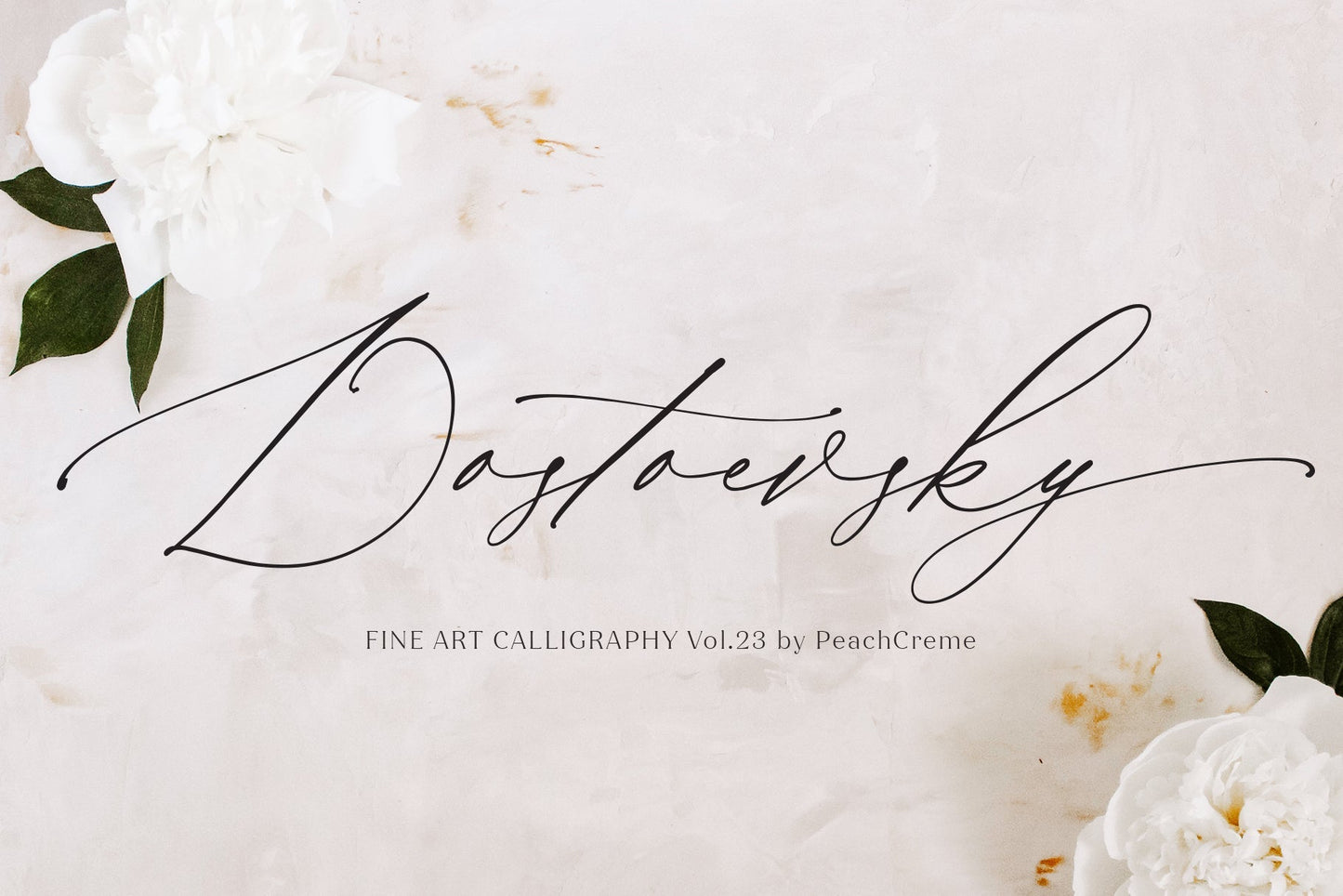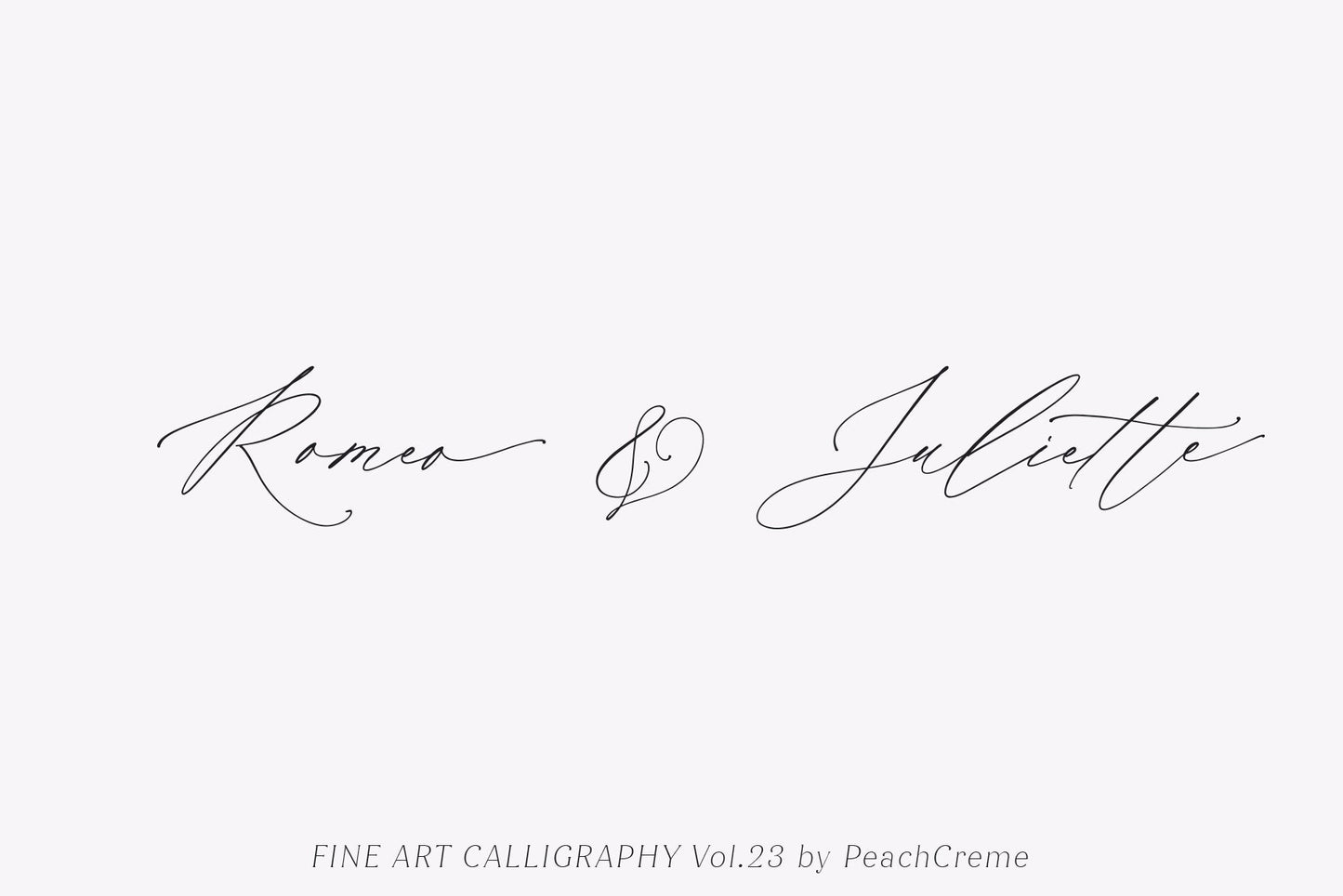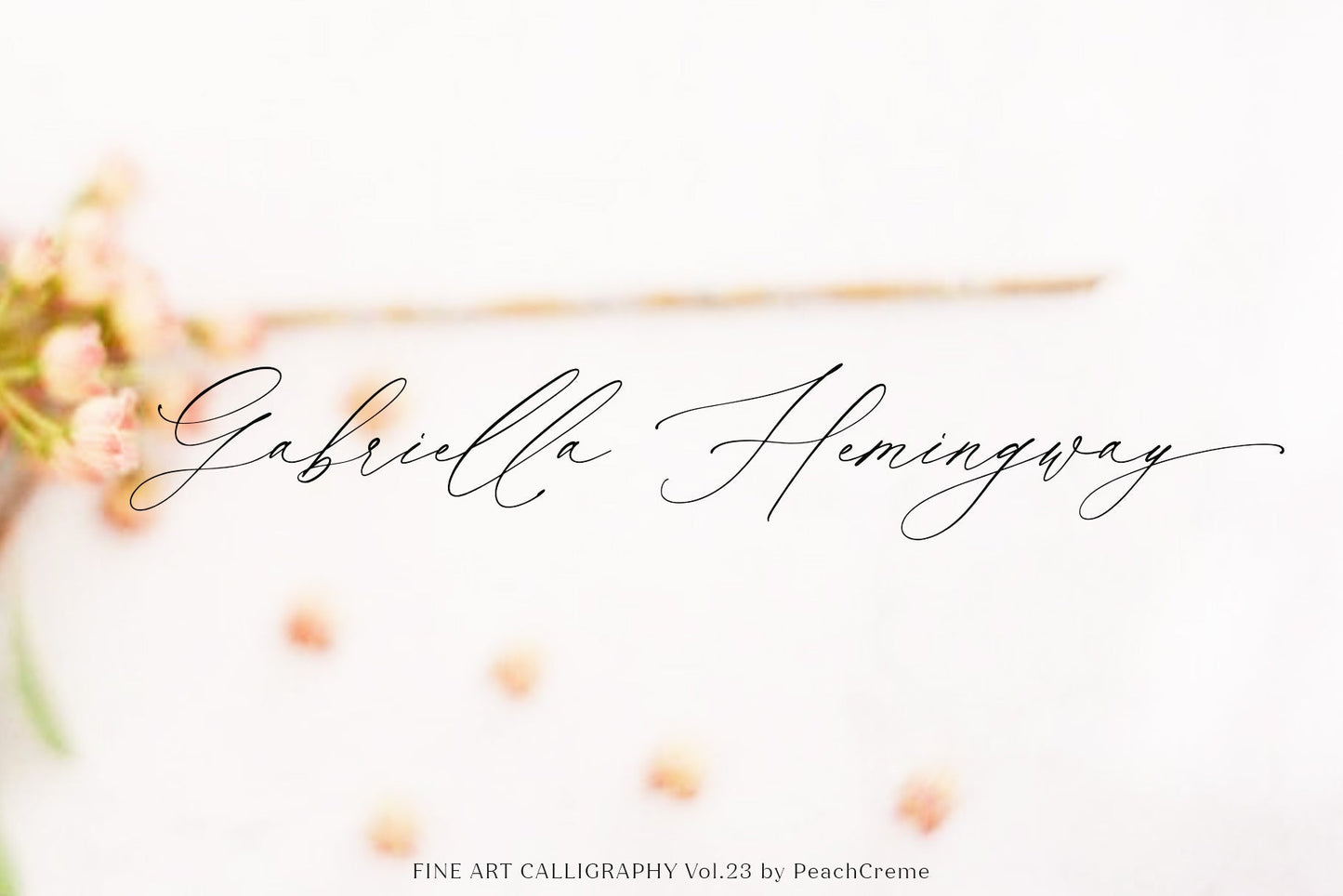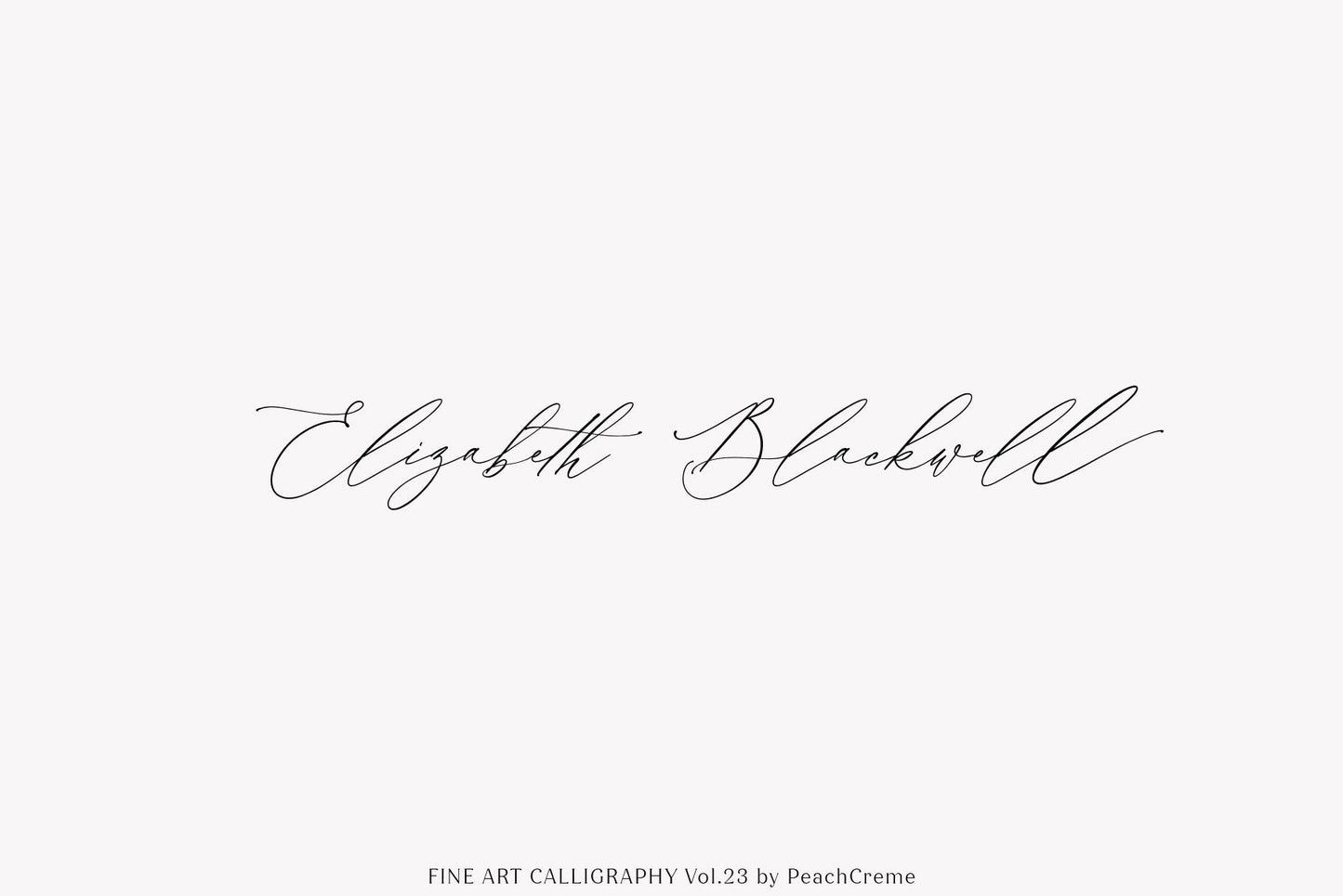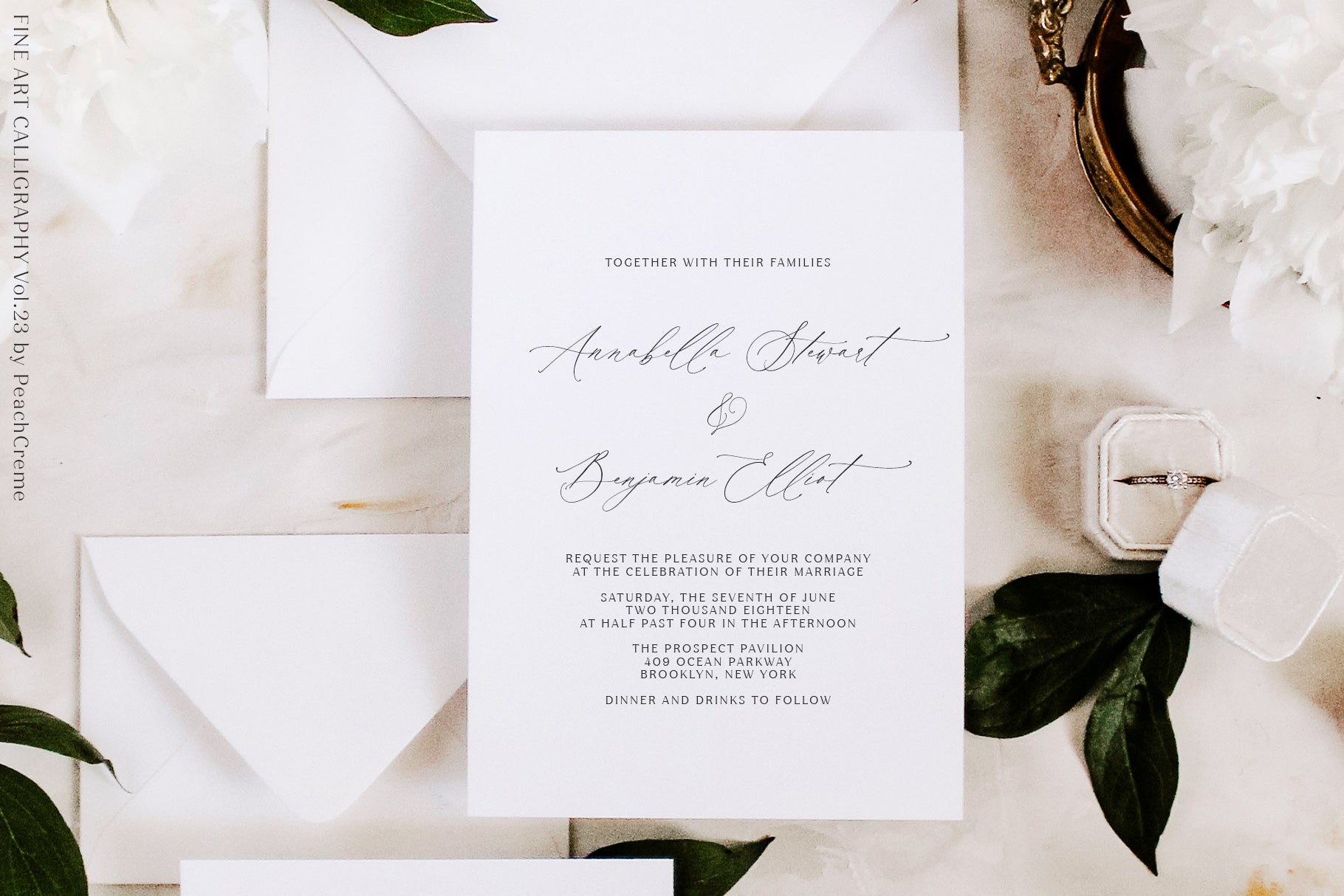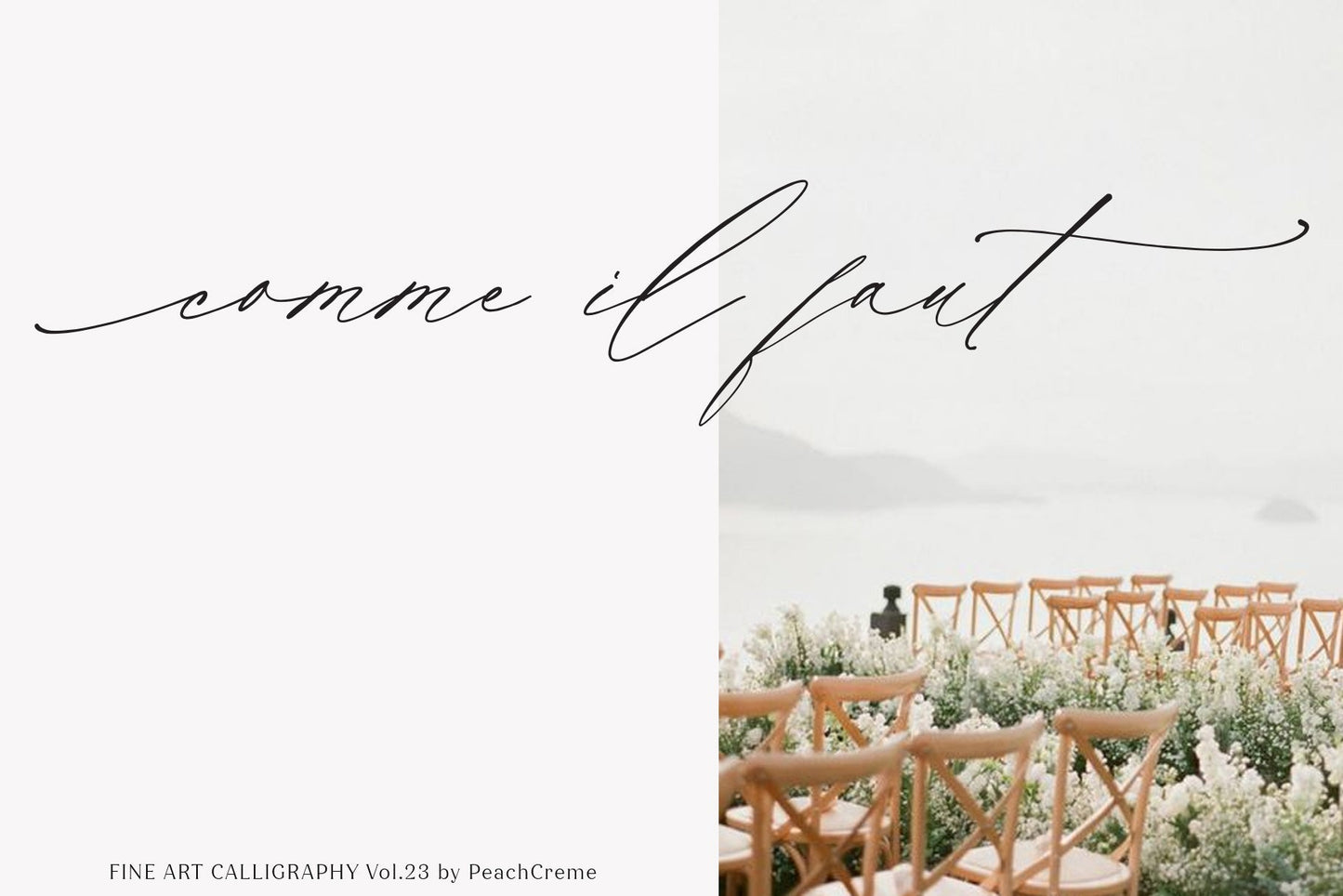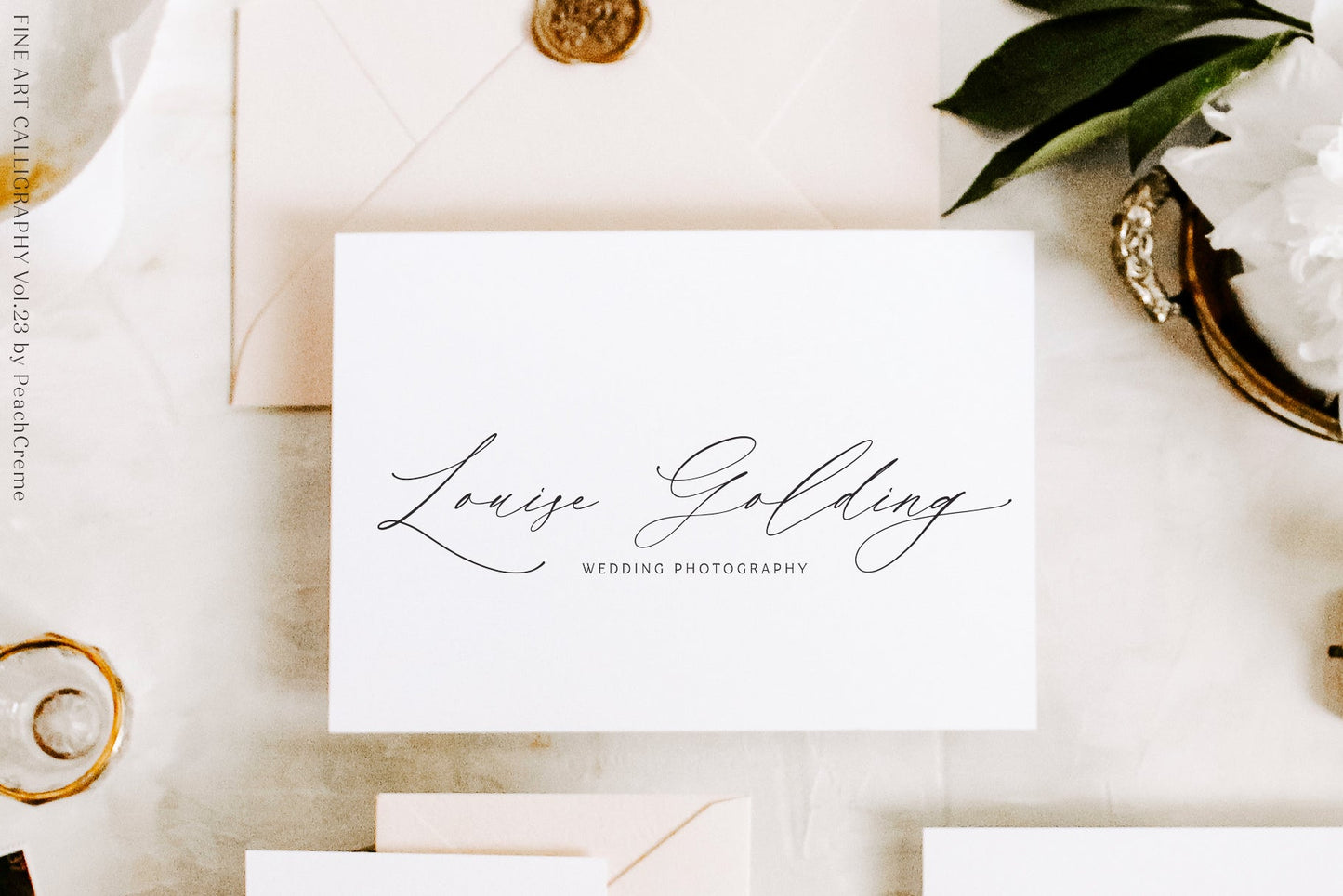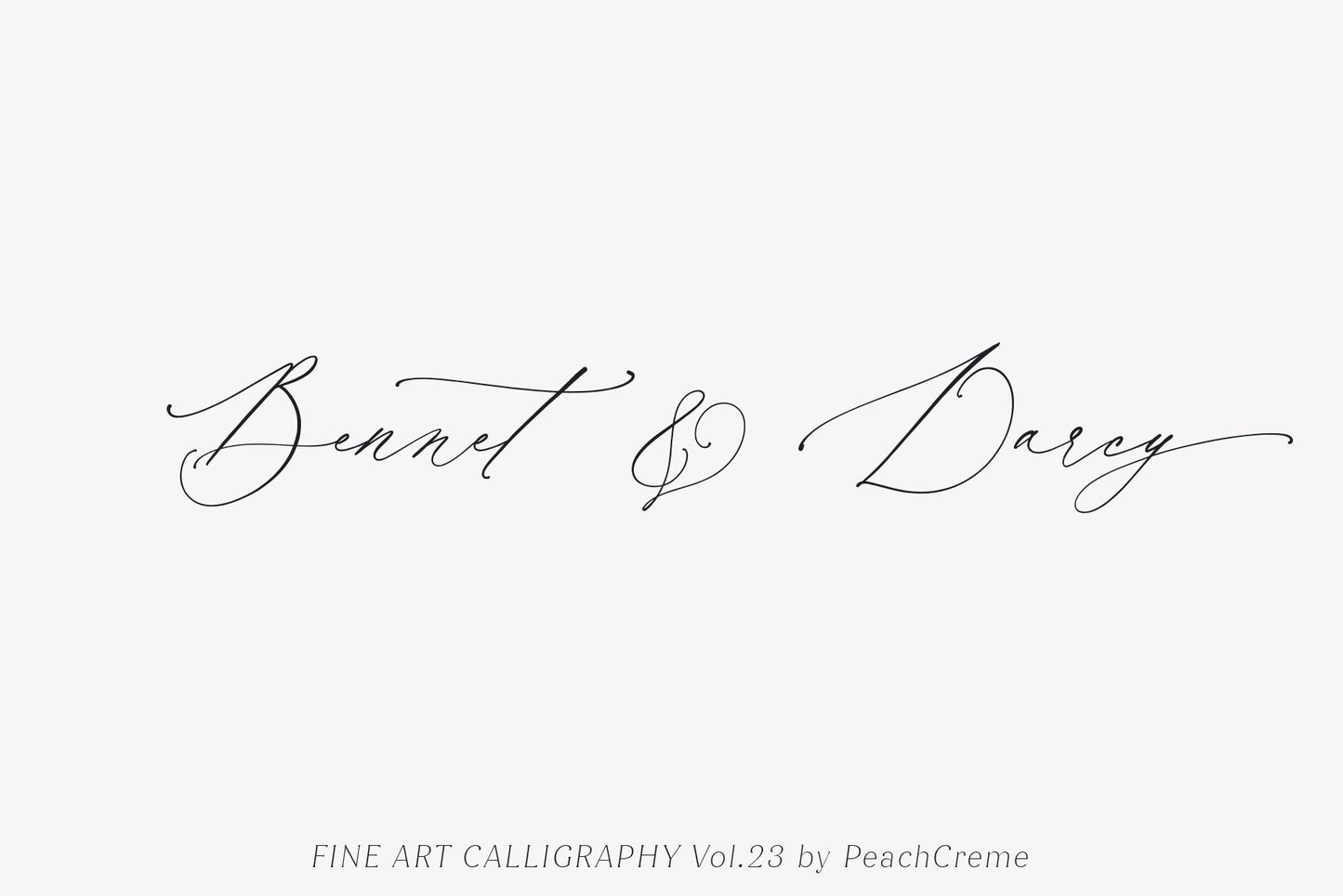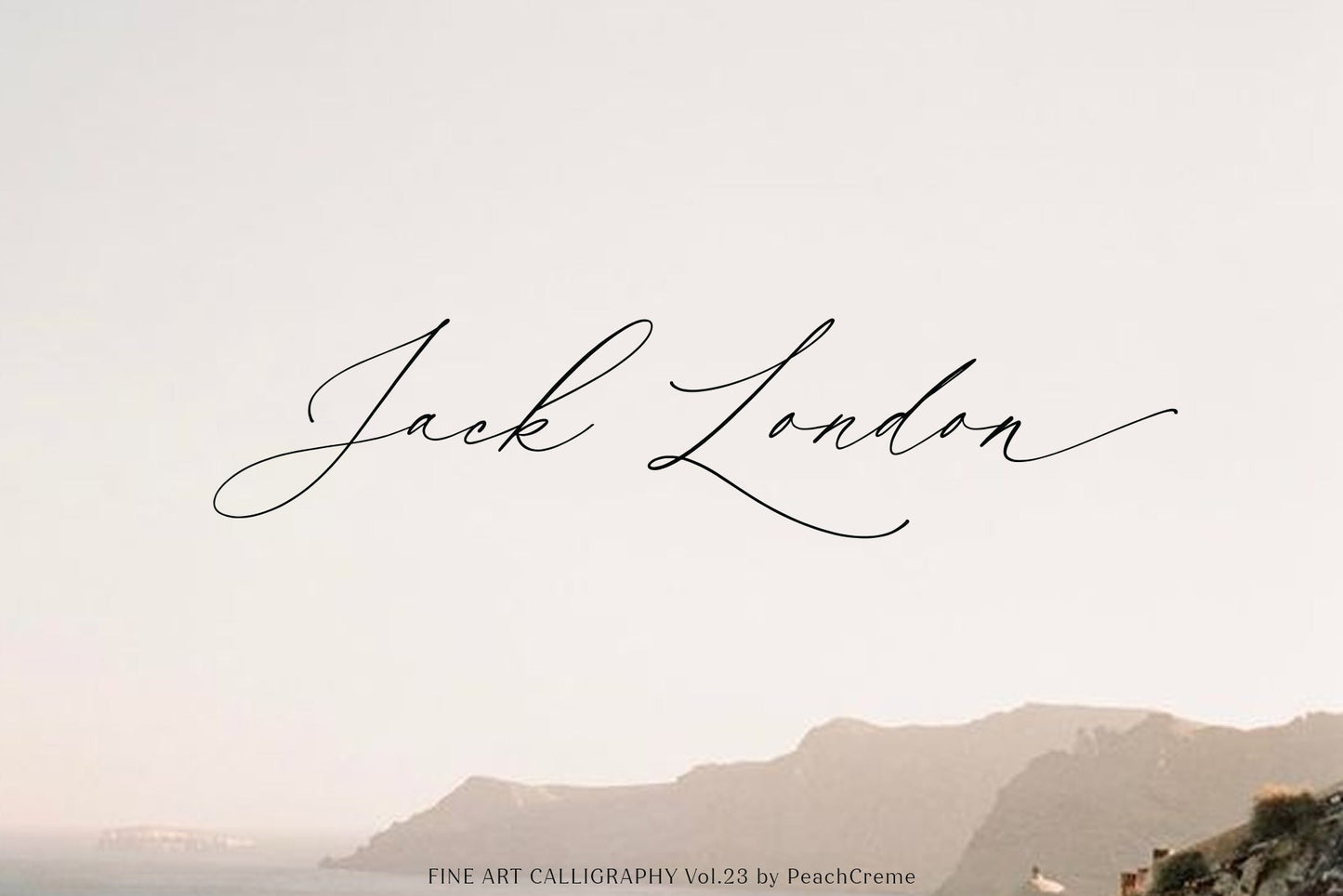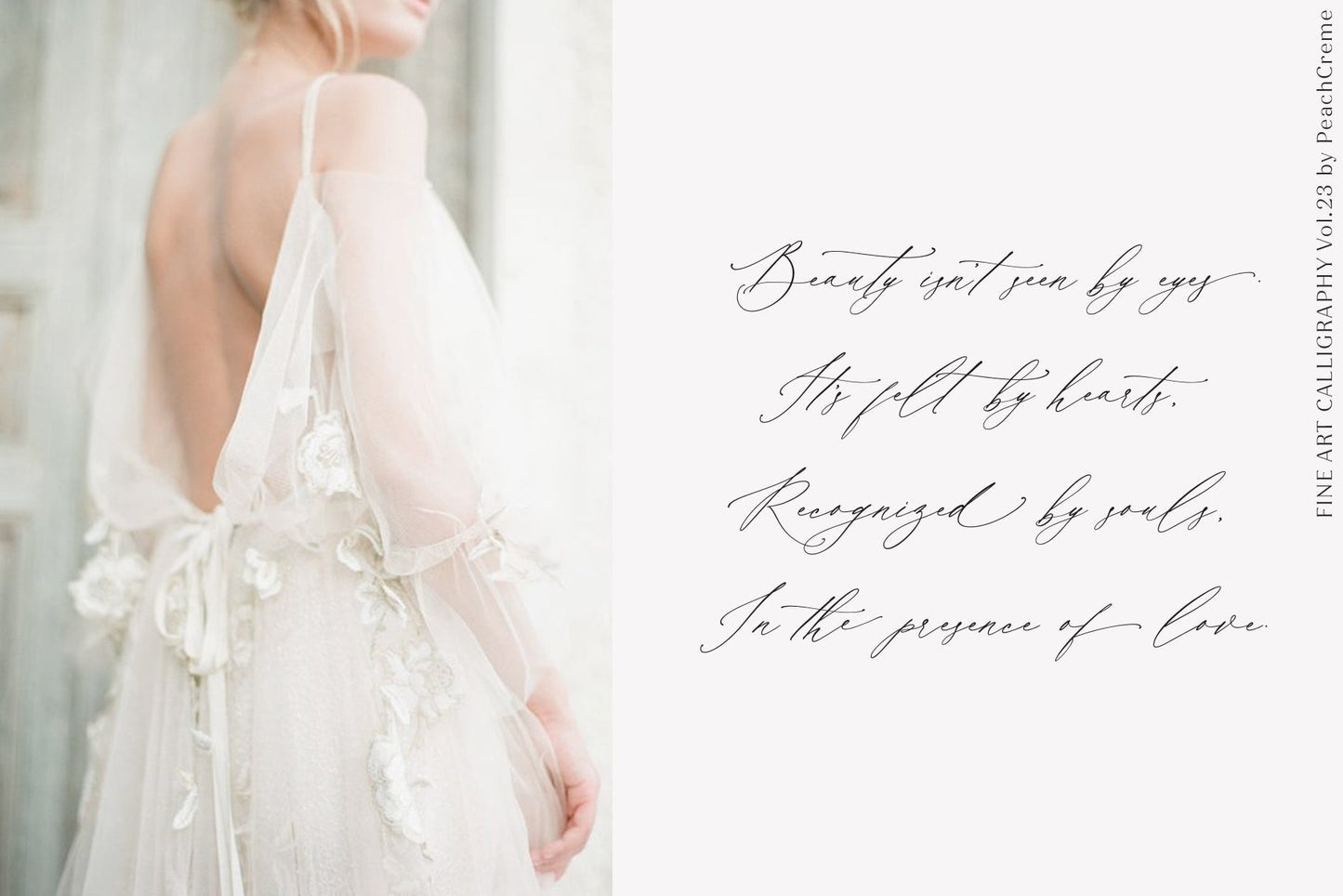
Dostoevsky Fine Art Font
LUXURY FINE ART TYPOGRAPHY VOL.23
Meet Dostoevsky! This font was inspired by Russian literature with its refined and rich language.
Dostoevsky is a fine art font, which includes full set of elegant uppercase and lowercase letters, beginning and ending lowercase swashes, multilingual symbols, numerals, punctuation. The font has smooth wet ink texture, so would be perfect for all types of printing techniques+you can do embroidery, laser cut, gold foil etc.